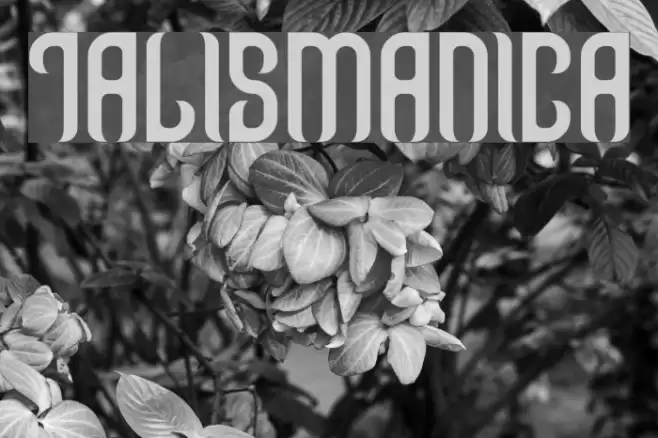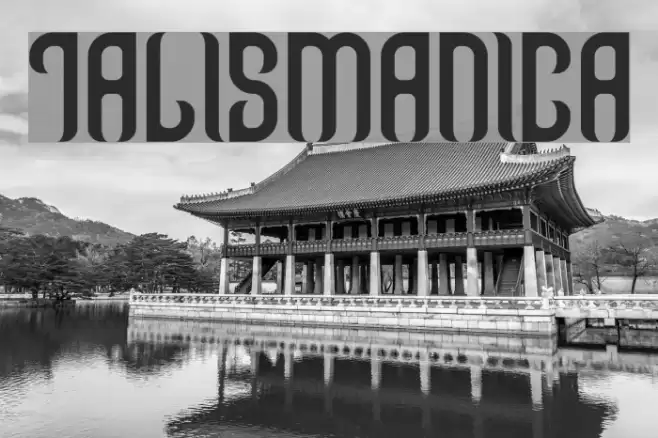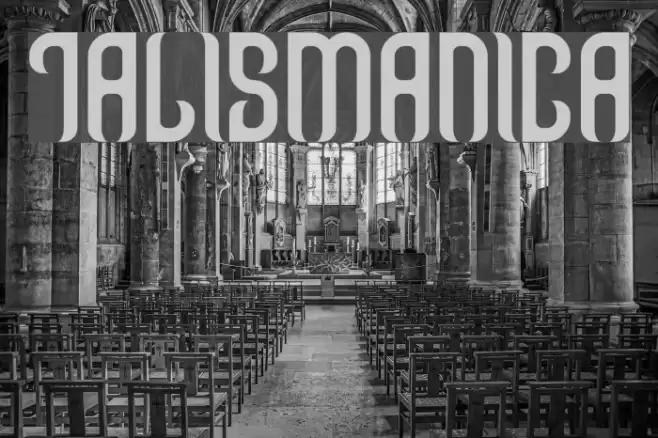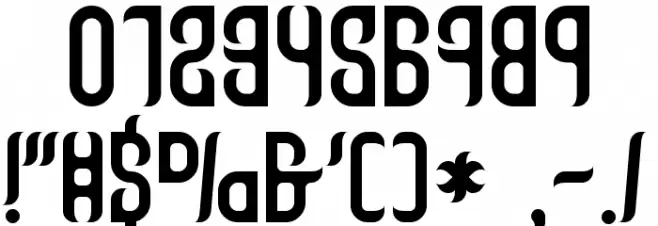
Talismanica Font
Talismanica Description
This font features a bold and striking design with a modern twist. The characters are tall and narrow, with a unique blend of sharp angles and smooth curves that create a distinctive look. The uppercase and lowercase letters maintain a consistent height, contributing to a uniform appearance. The numbers and special characters are designed to match the boldness of the letters, ensuring a cohesive style throughout. This font's strong presence makes it ideal for attention-grabbing headlines and titles.
A bold, modern font with tall, narrow characters and a unique blend of angles and curves from Capitals fonts.
- Proposed Projects: Ideal for branding, posters, headlines, and any project requiring a bold, modern aesthetic.